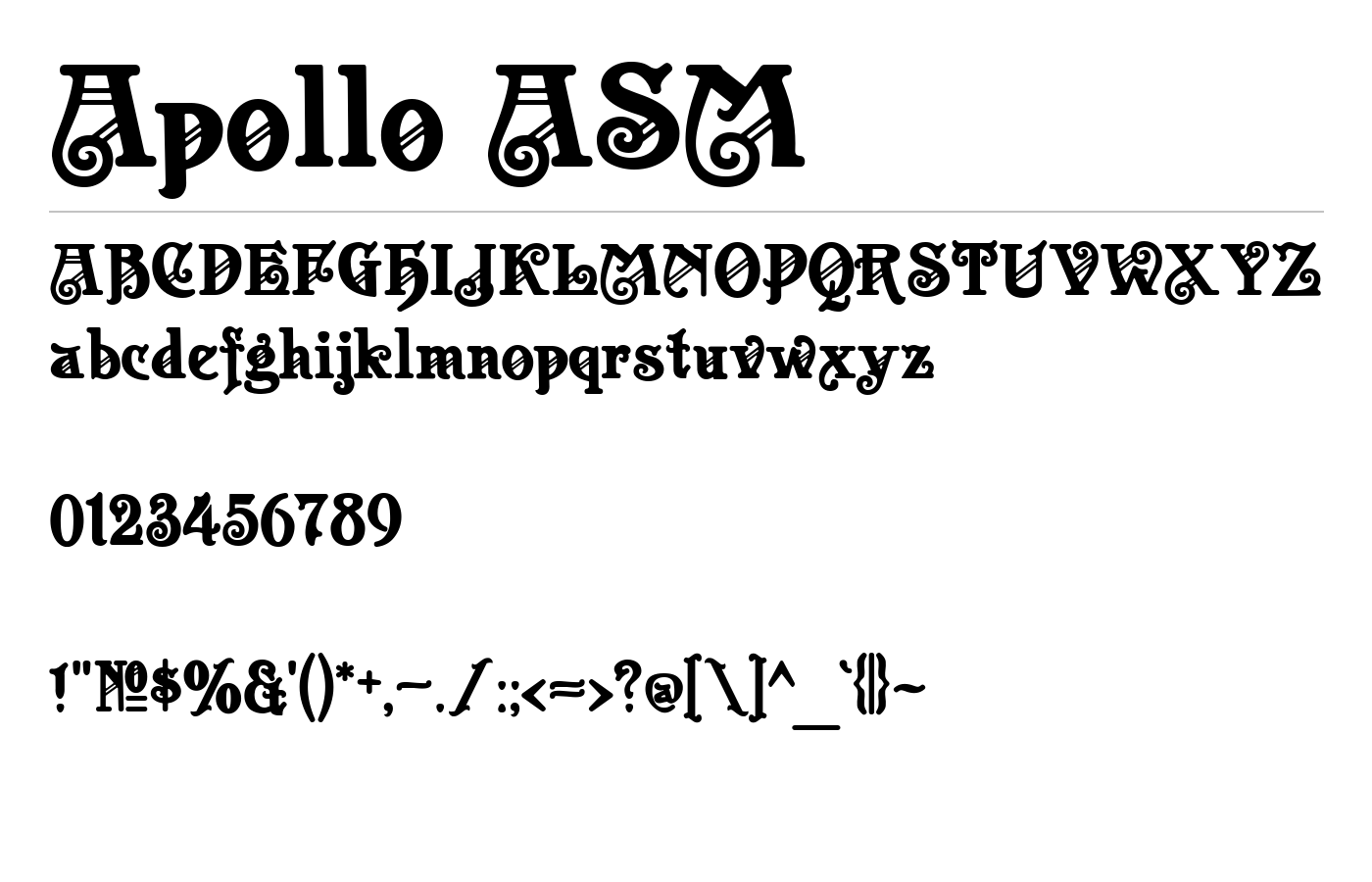
Apollo ASM is a distinctive serif font with strong decorative flair, featuring high contrast between thick and thin strokes and whimsical curled embellishments on many letters. Its upright, moderately condensed letterforms and playful details give it a vintage yet quirky personality, making it ideal for eye-catching headlines, logos, and creative designs that want to convey charm and uniqueness. This font works best where a bold, artistic statement is needed, especially in branding, posters, or thematic editorial projects.
Apollo ASM Font